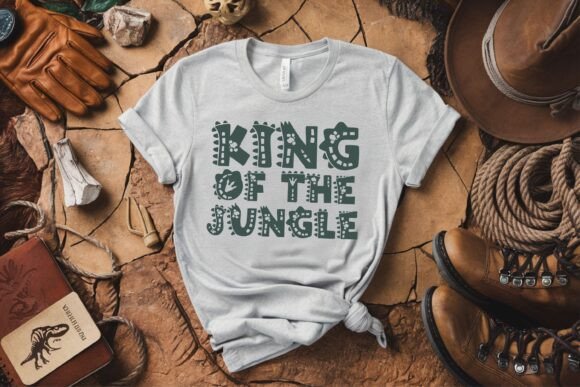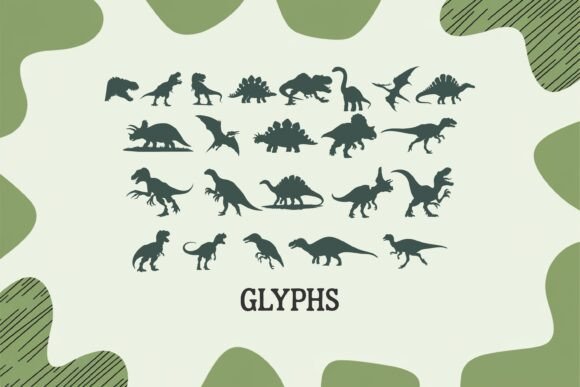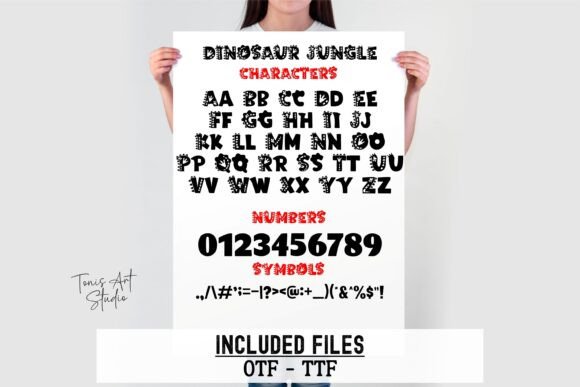
Dinosaur Jungle Font
Introducing the Dinosaur Jungle Font—a playful typeface featuring dinosaur silhouettes and rugged details. Ideal for kids’ birthday invitations, nursery art, adventure books, t-shirts, and DIY crafts. Compatible with Cricut, Silhouette, and Procreate. Includes full alphabet, numbers, symbols, and bonus dino glyphs. Easy installation on Mac and Windows. Perfect for creating unique, prehistoric-themed designs.